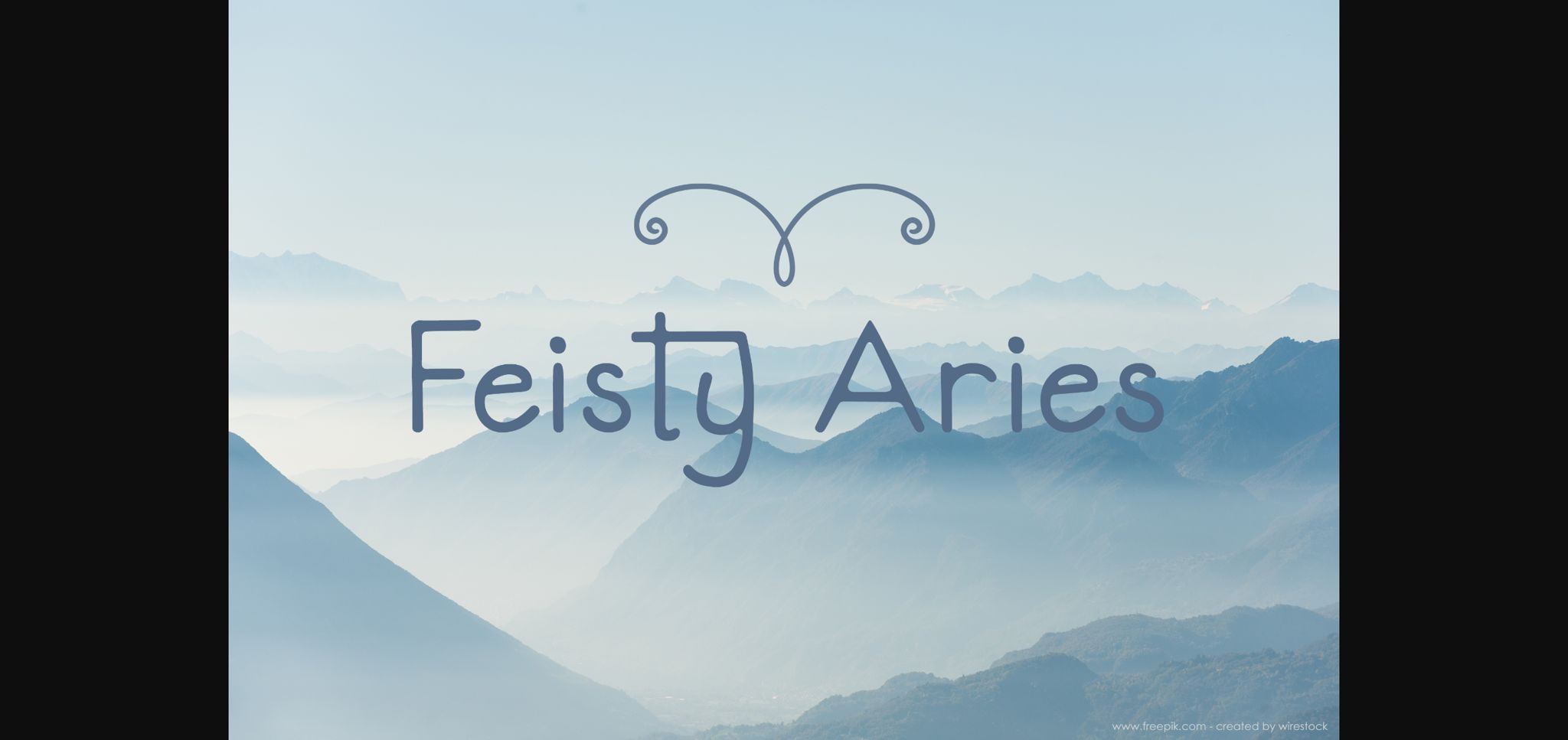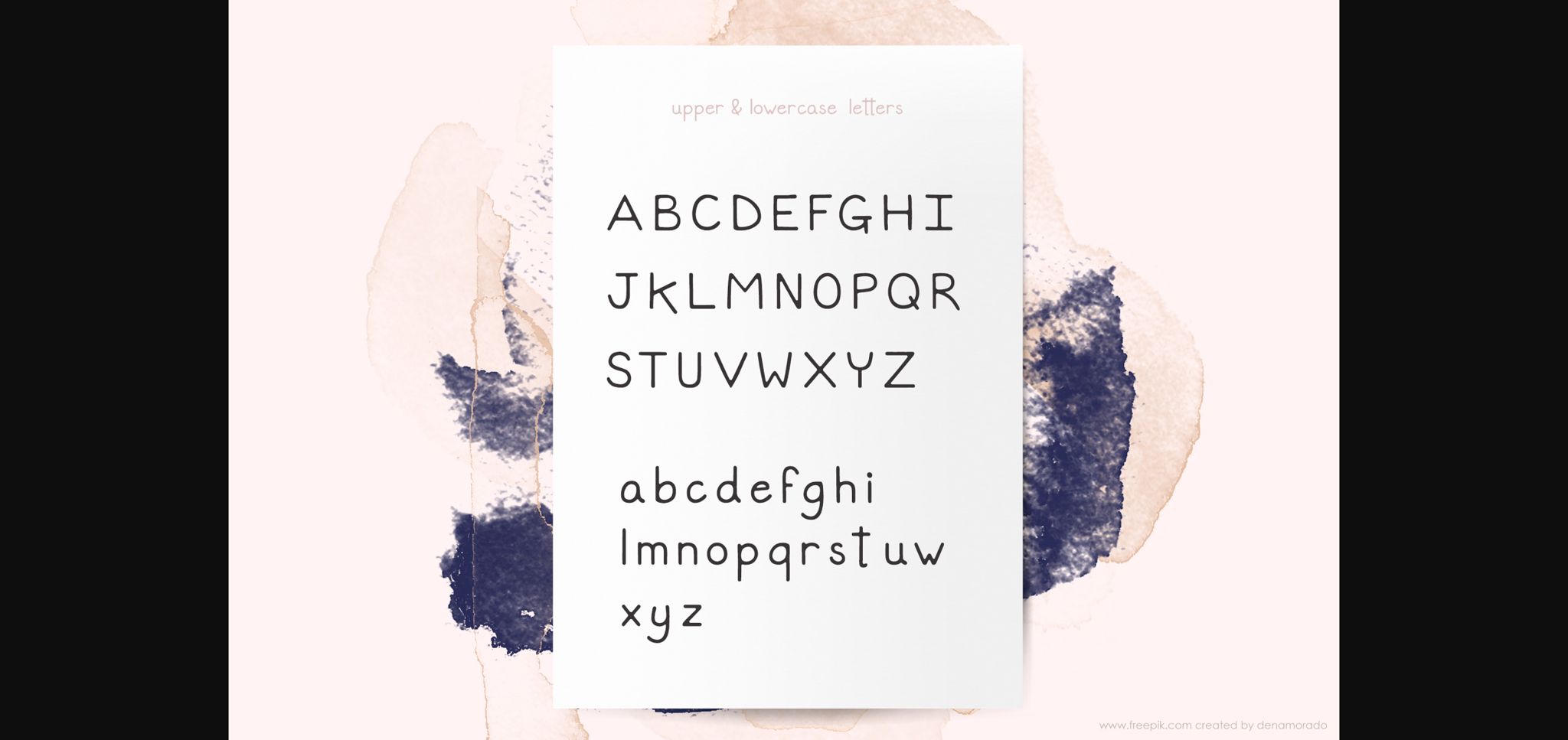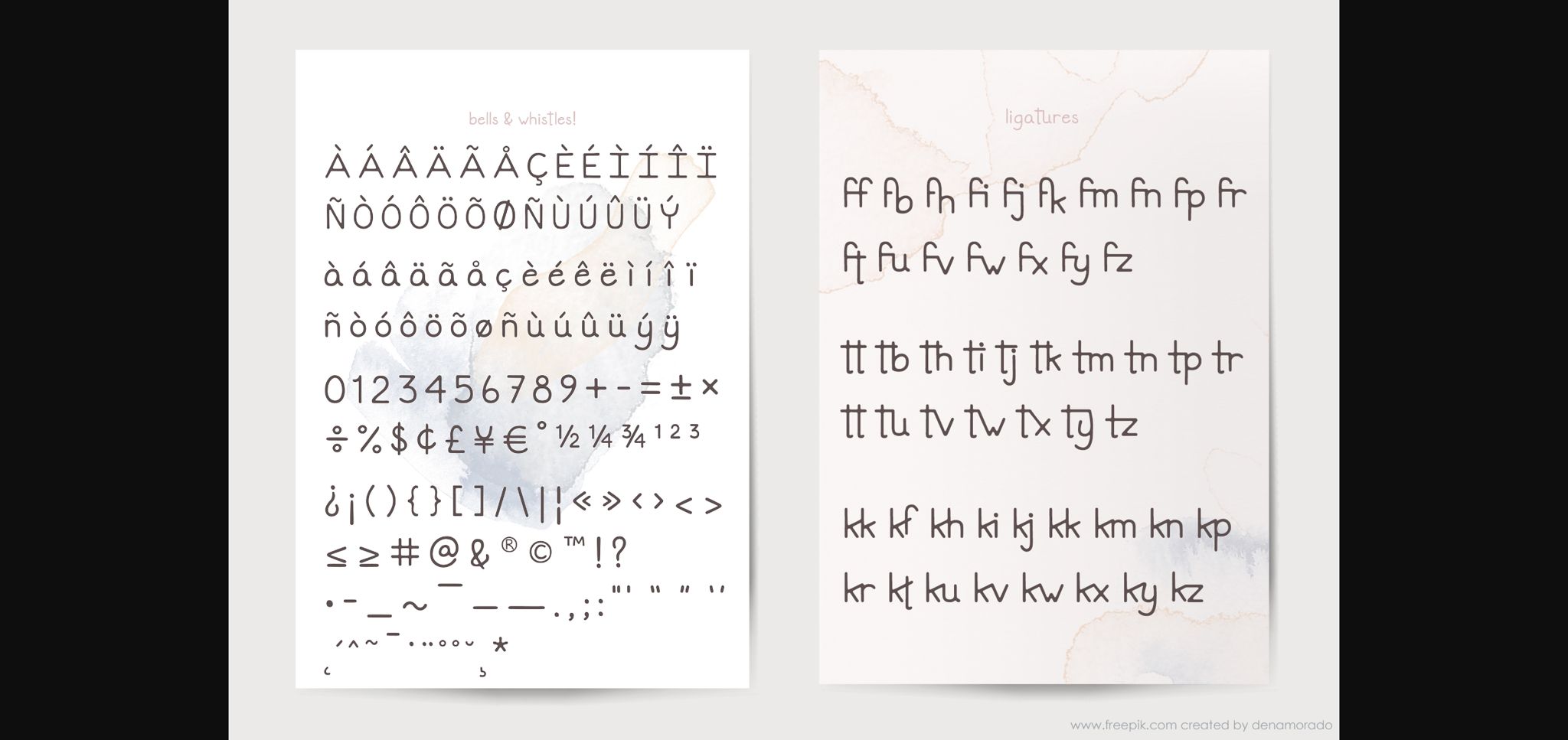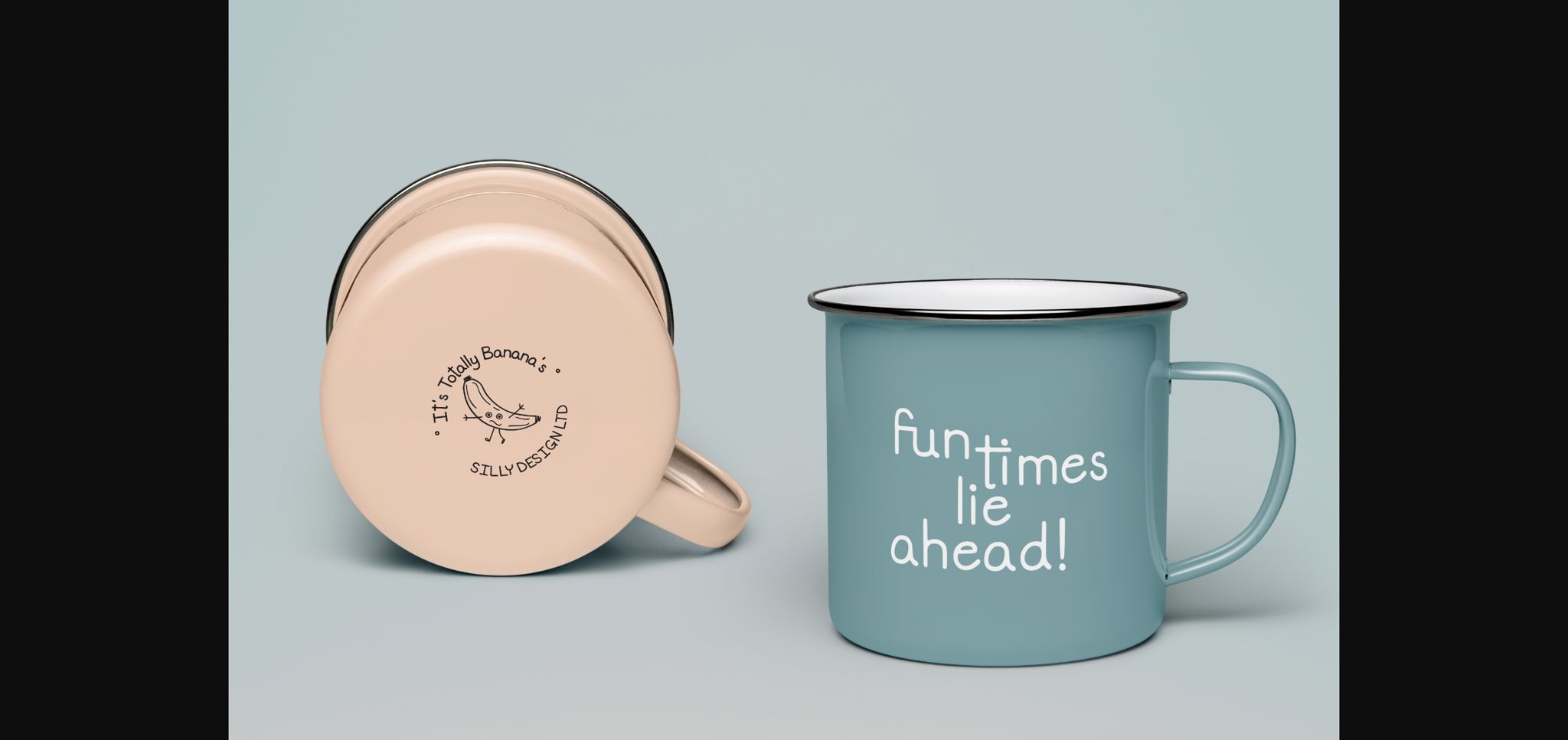
About Feisty Aries Font
Feisty Aries is a smooth edged and delicate sans serif font. It can easily be matched to an incredibly large set of projects, so add it to your creative ideas and notice how it makes them stand out!